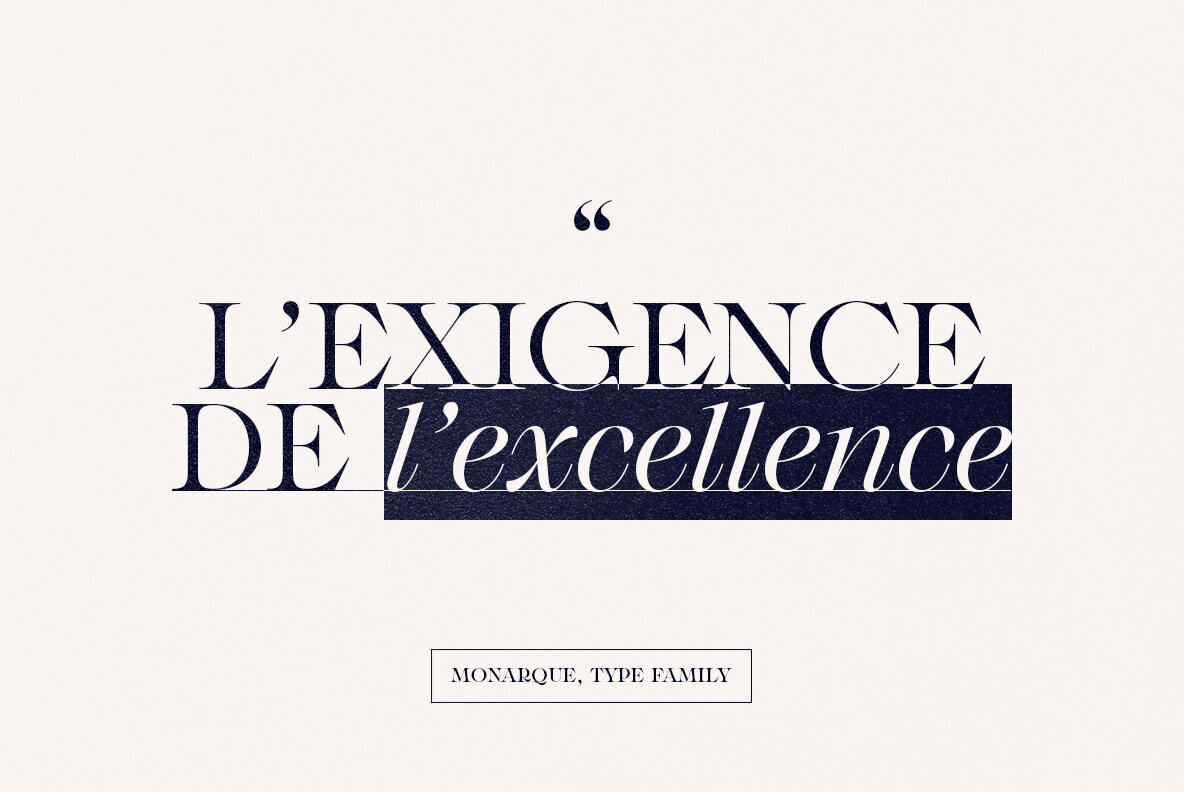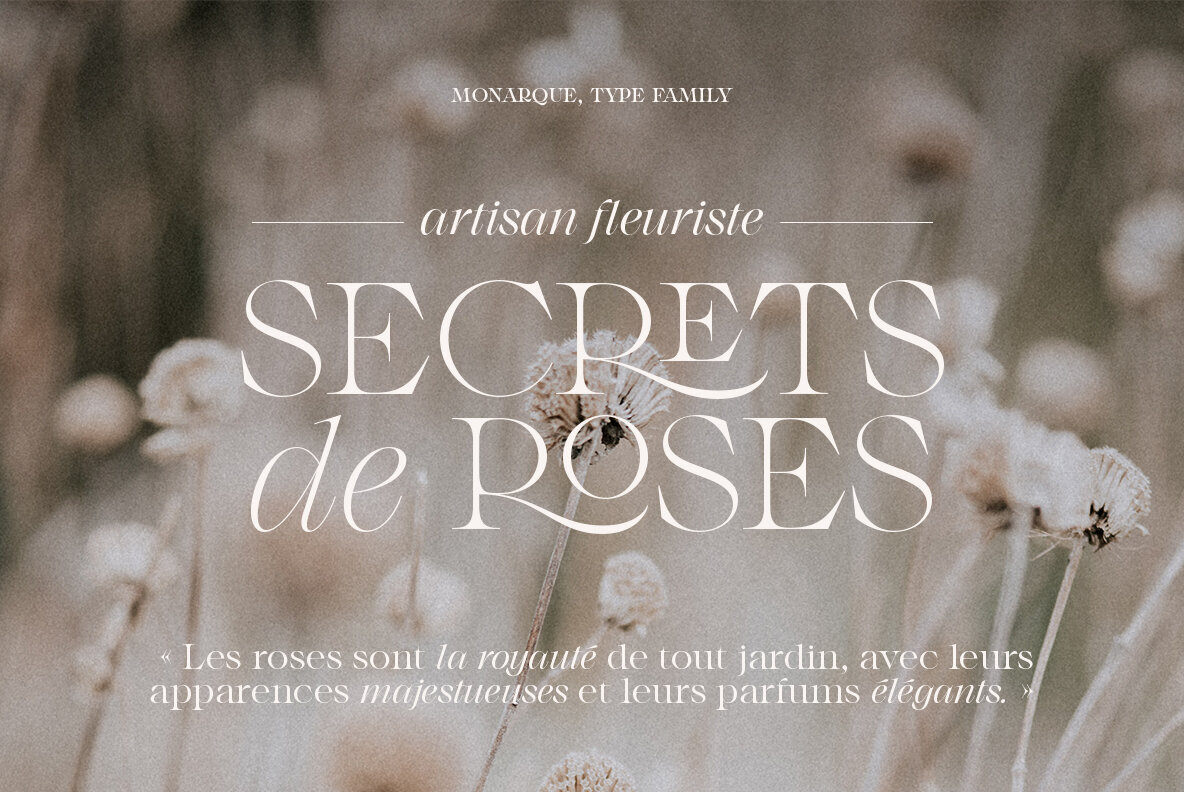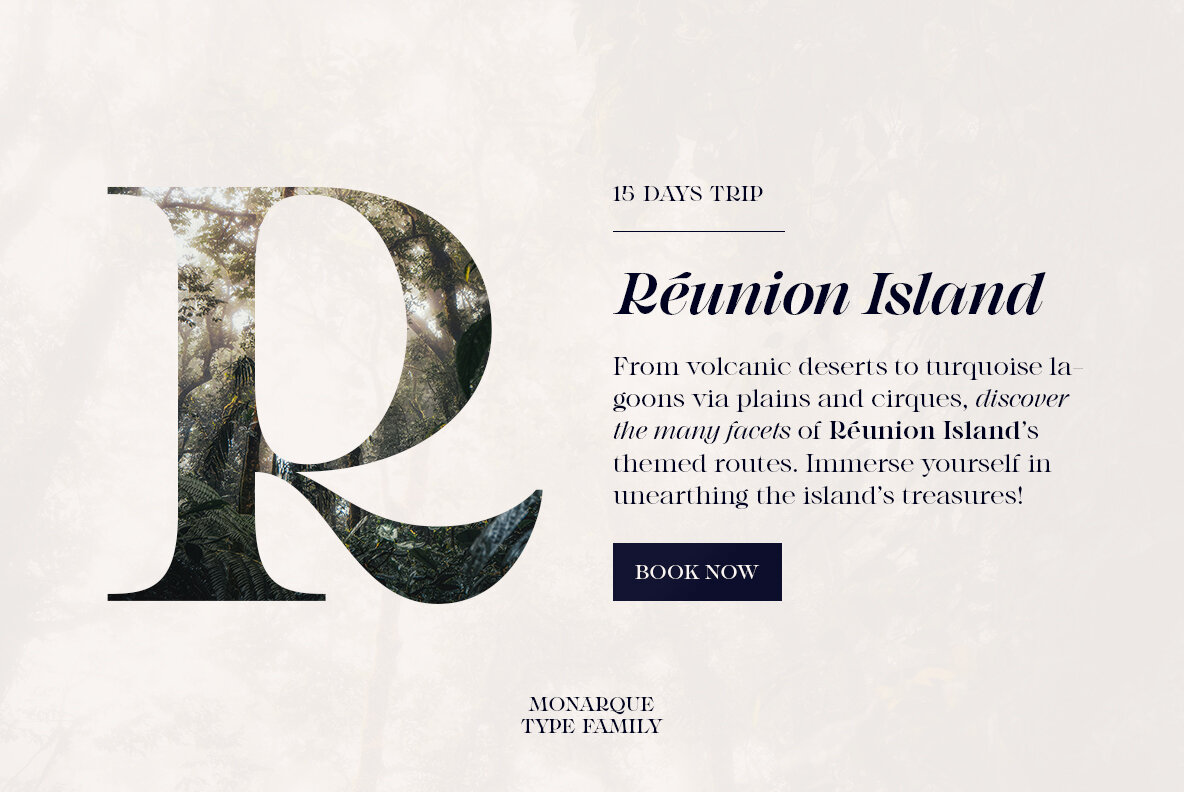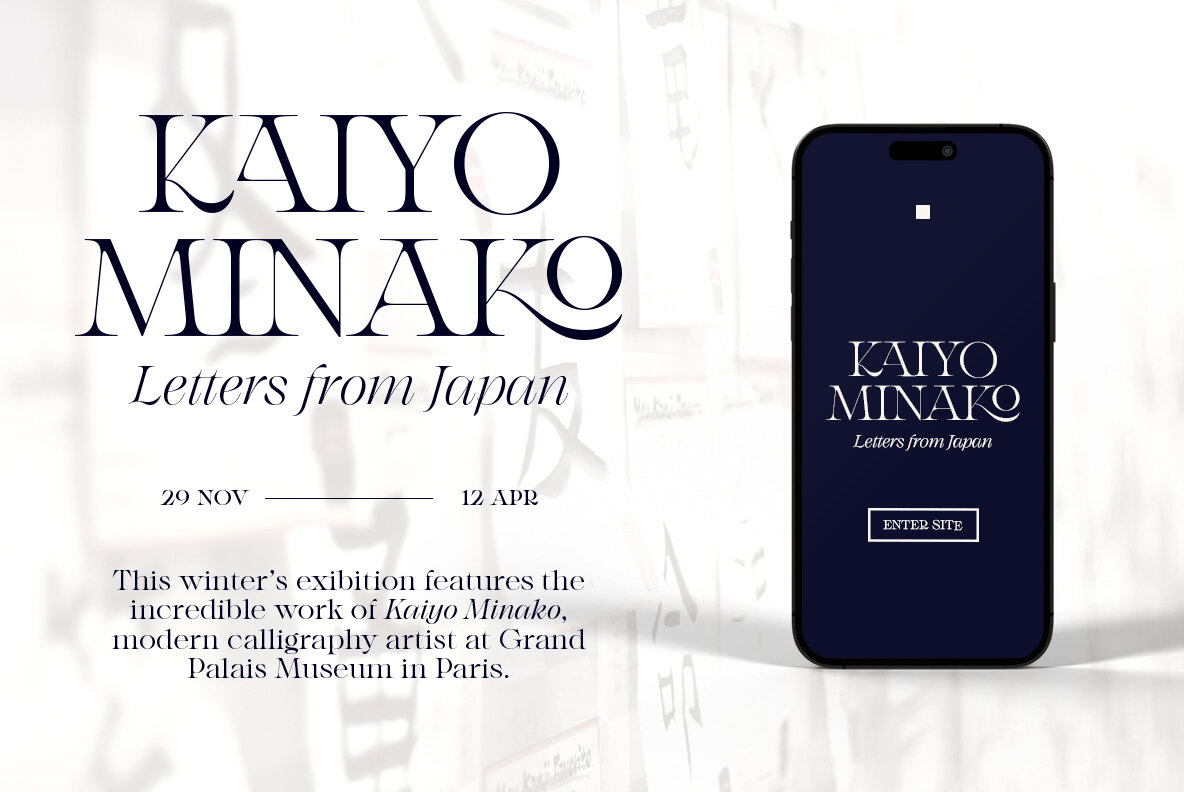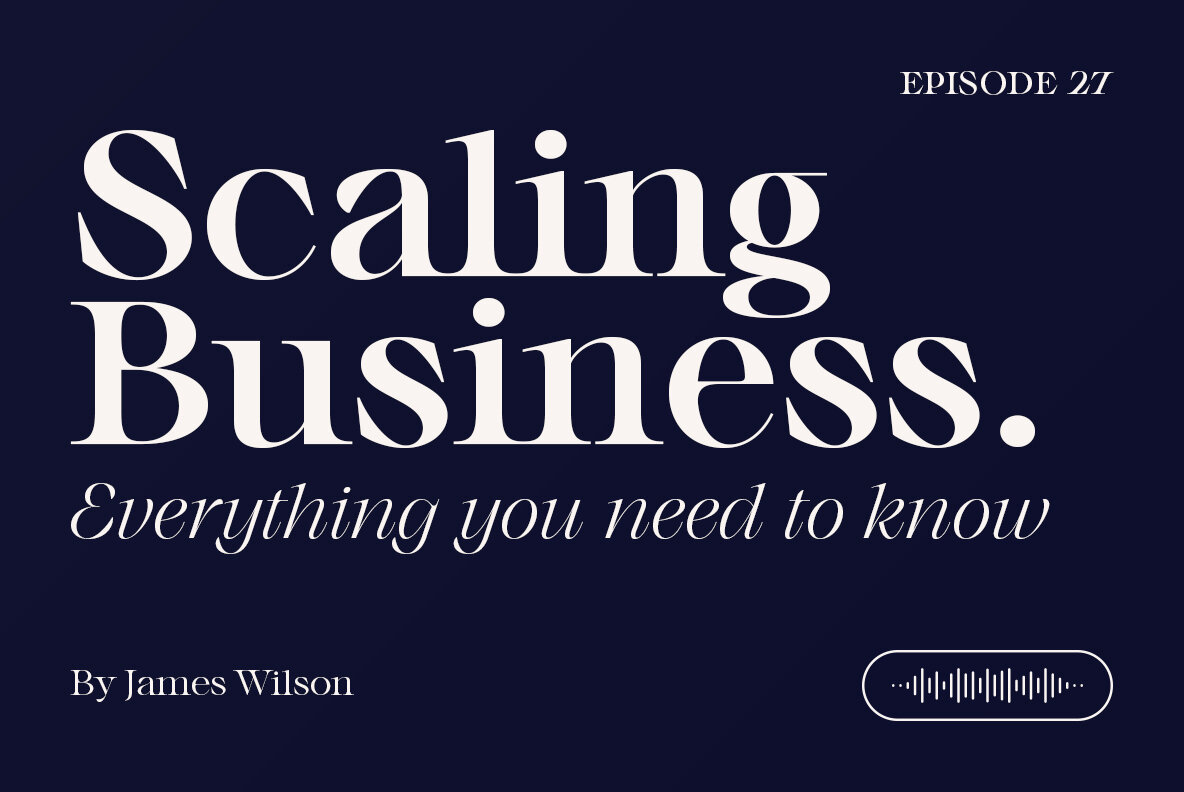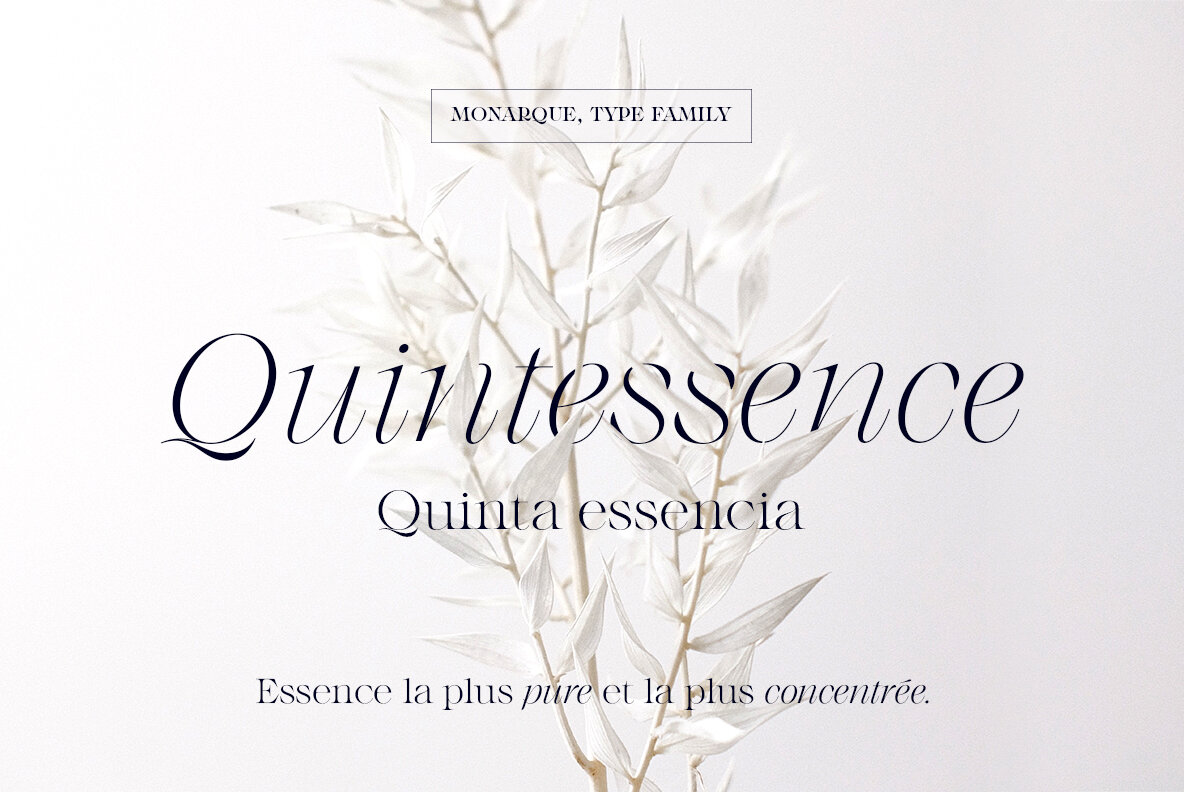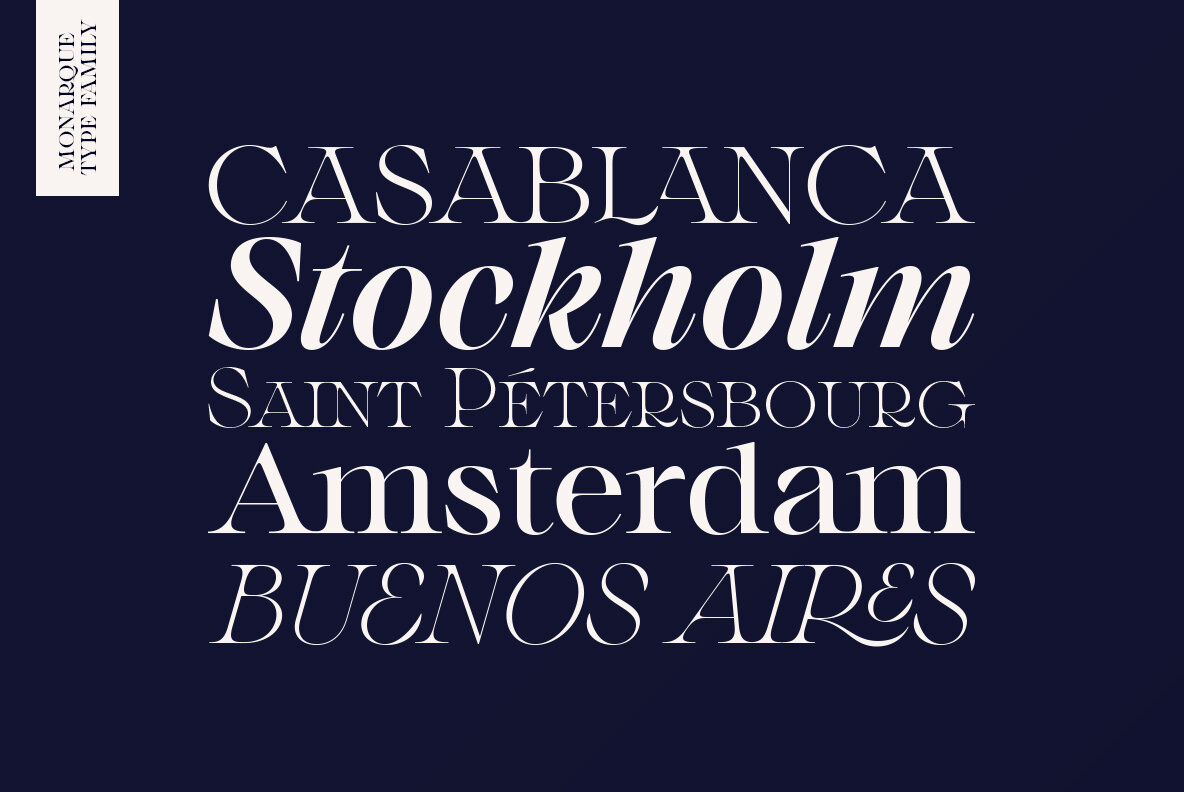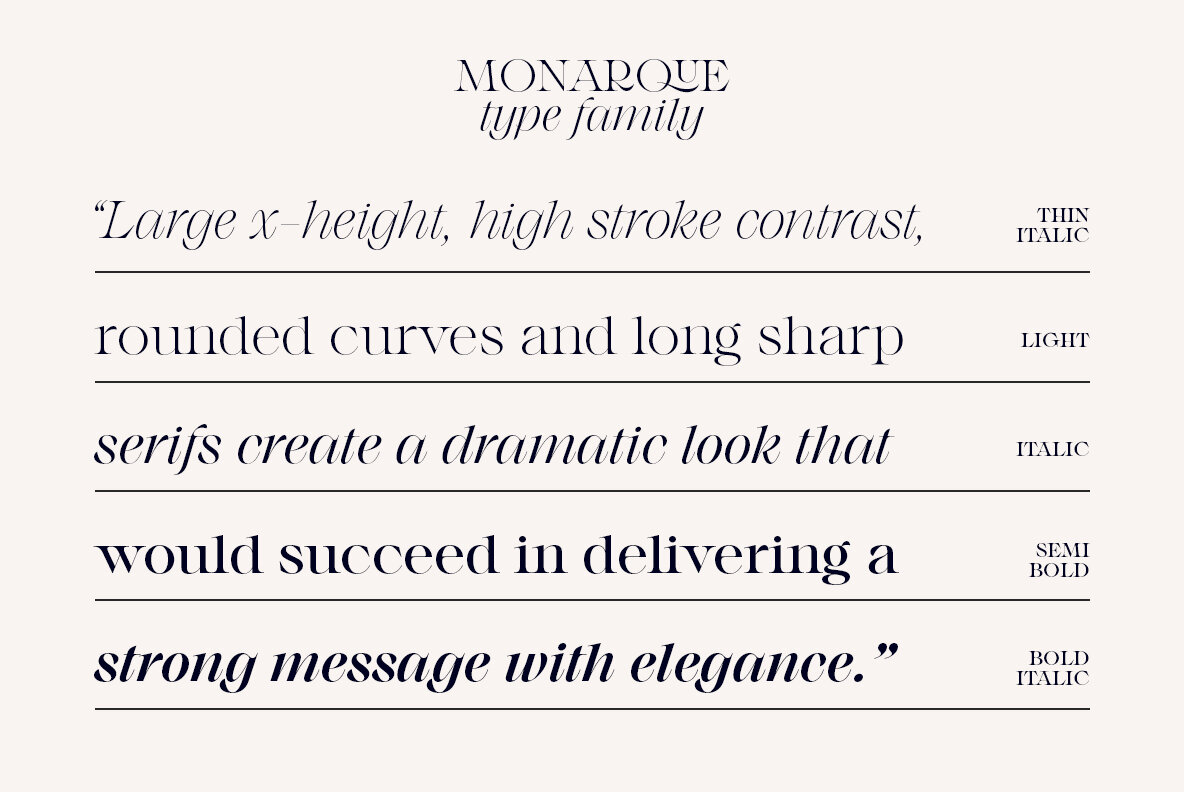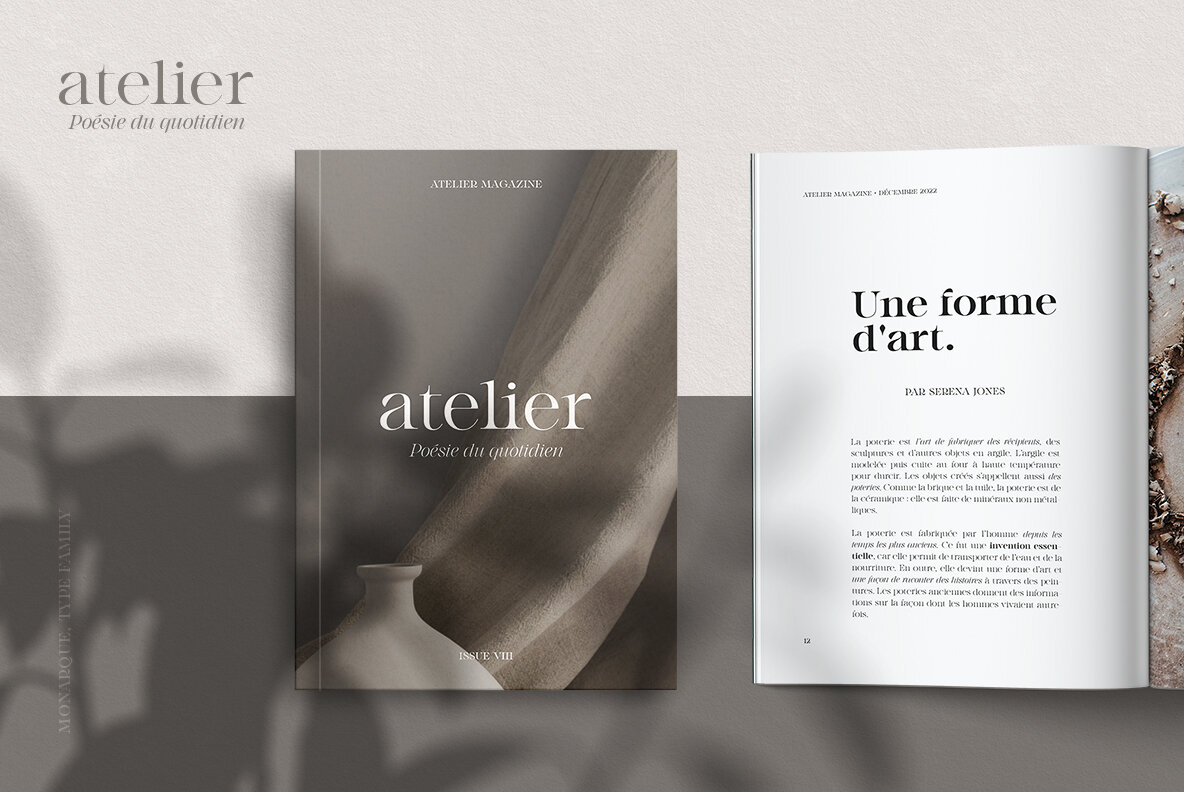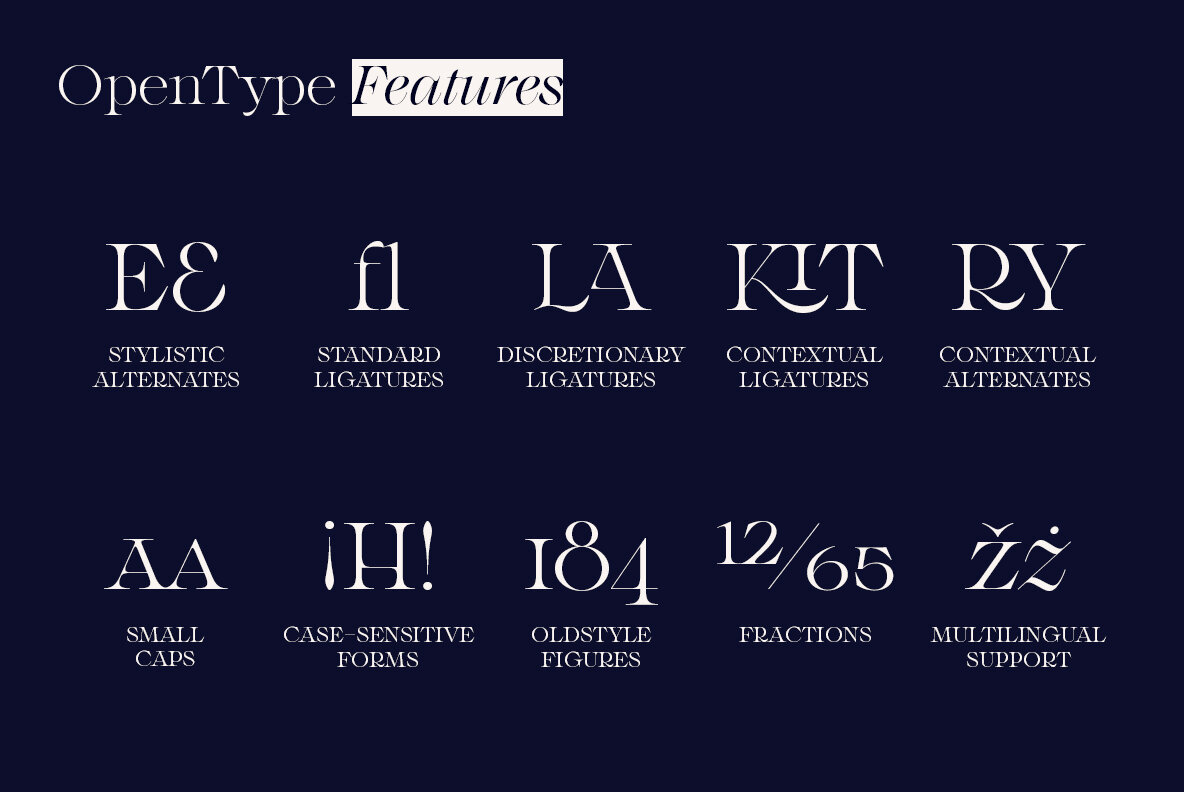
Monarque Font
Monarque offers a sophisticated blend of fine details and bold features, perfect for those seeking to achieve distinction in typography. The typeface's large x-height and pronounced stroke contrast, combined with its rounded curves and elongated serifs, craft a dramatic appearance that communicates with both power and grace. Initially envisioned as an all-caps-only font, Monarque has expanded into a versatile type family with five weights, delivering a total of ten fonts. Supporting over 200 Latin-based languages, it offers broad applicability across various design needs, from editorial projects to branding and logo design. Though currently optimized for display use, Monarque excels in headlines or shorter to medium-length texts, making it an invaluable asset for capturing attention in any design context.Monarque: A Striking Typeface for Elevated Design
Design Features